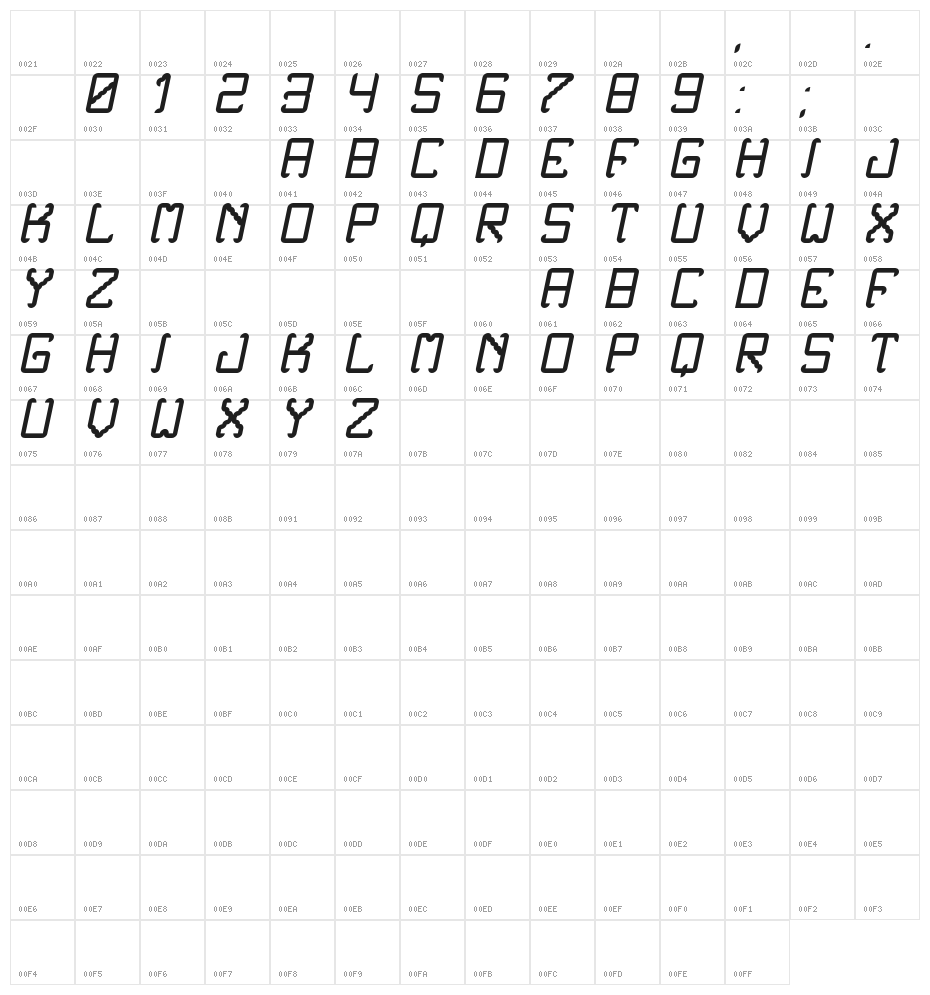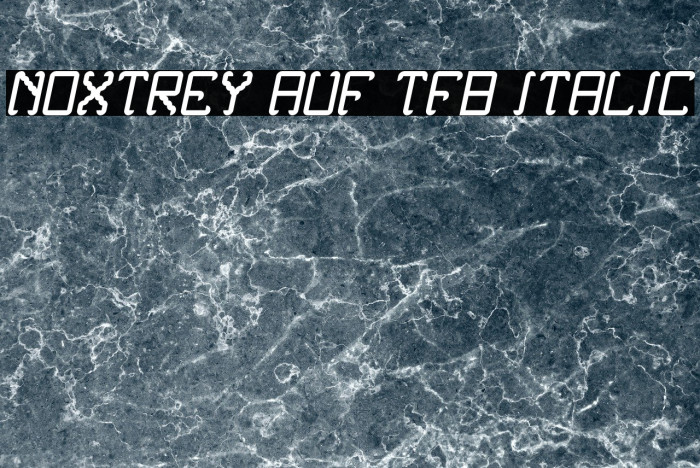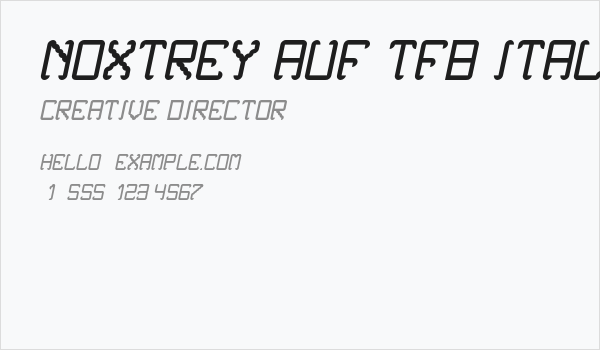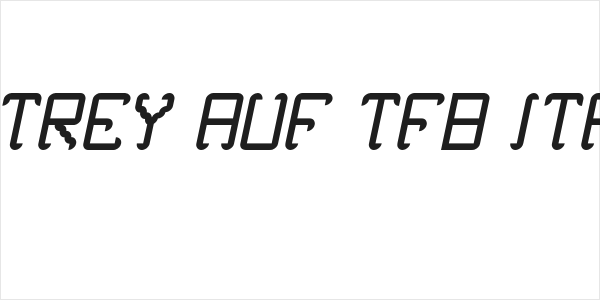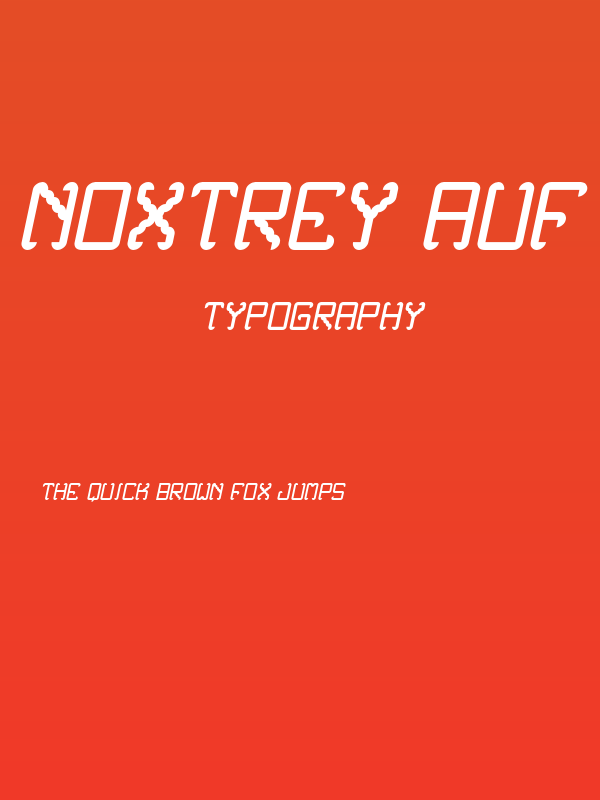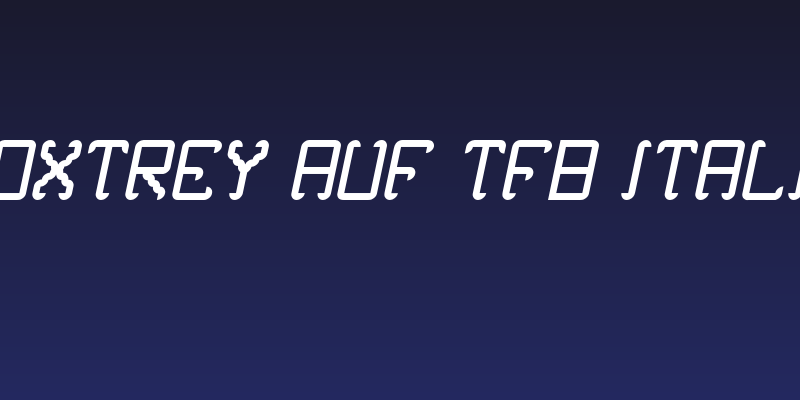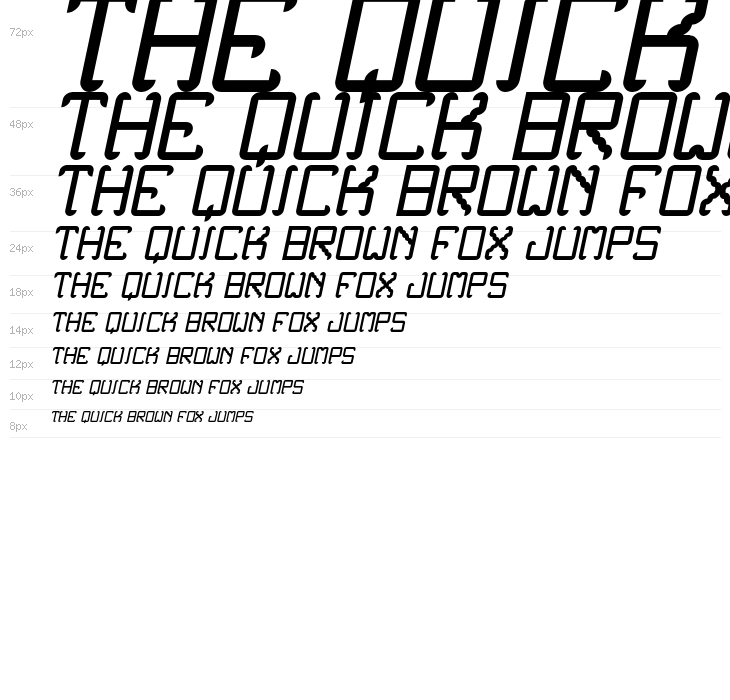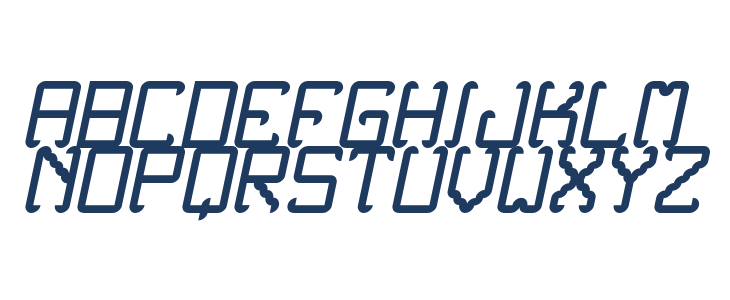
Noxtrey Auf tfb Italic Font
Noxtrey Auf tfb Italic Description
This font features a modern, italicized style with a distinct geometric structure. Each character is crafted with a consistent stroke width, giving it a uniform appearance. The letters are slightly slanted, adding a dynamic and forward-moving feel. The design incorporates rounded edges and sharp angles, creating a unique blend of softness and precision. The numbers follow the same stylistic cues, ensuring a cohesive look across all characters. This font is suitable for projects that require a contemporary and tech-savvy aesthetic.